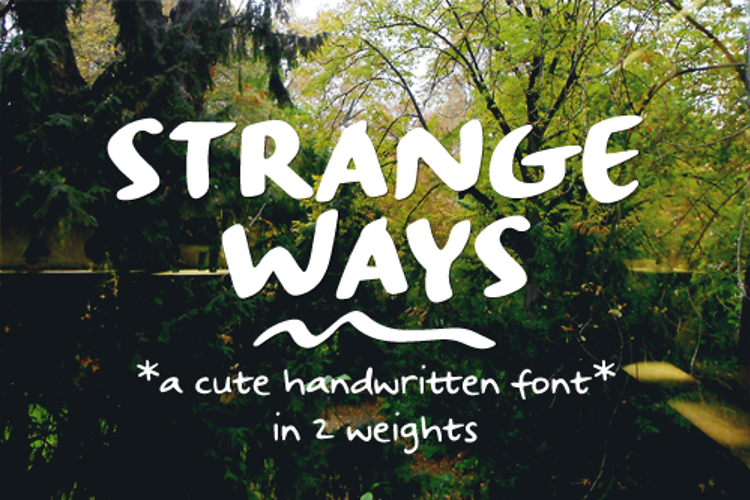
Strangeways Sample Font
"Strangeways" is a handwritten font in 2 weights: regular and bold.
- A-Z, a-z, 0-9, accents, punctuation and symbols
- Ligatures